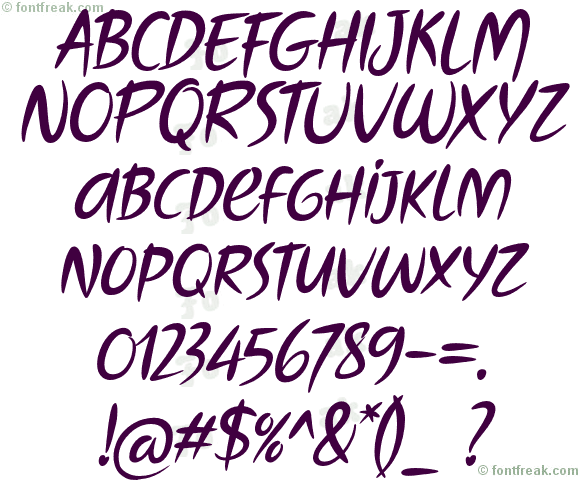
TouchOverNext
About TouchOverNext
TouchOverNext is an engaging display font designed by Situjuh Nazara that falls into the category of modern handwritten typefaces. This font captures the essence of spontaneity and creativity, featuring a unique style that blends informal elegance with artistic flair. Its strokes are characterized by a medium weight with slight variations in thickness, adding a dynamic quality to the text. The letters exhibit a relaxed yet confident spacing, making it easy to read while maintaining a playful aesthetic.
Ideal for a variety of applications, TouchOverNext shines in contexts such as wedding invitations, where its charming personality can elevate the overall design. It works beautifully on movie posters, lending an inviting touch that draws attention. Additionally, this font is perfect for restaurant menus, offering a friendly and approachable vibe that can entice diners. Content creators will find it useful for social media graphics, enhancing the visual appeal of posts and engaging audiences. Graphic designers will appreciate its versatility, allowing for creative expression across different projects.
What sets the TouchOverNext font apart is its ability to blend casual charm with professional polish, making it suitable for both personal and commercial projects. Whether you're crafting an eye-catching flyer or a heartfelt greeting card, this font delivers a unique touch that resonates with audiences. Explore the creative potential of TouchOverNext font free download and see how it can enhance your next design project.